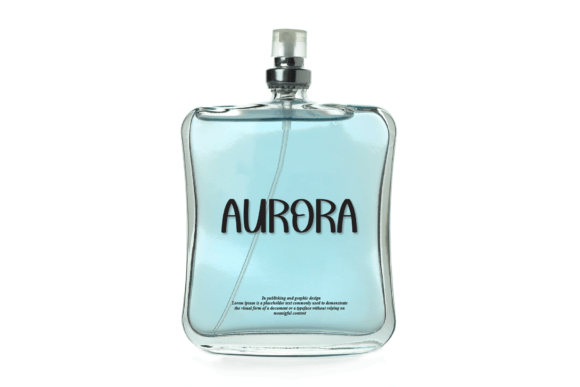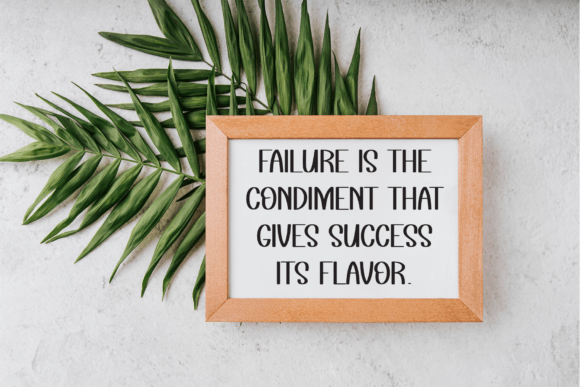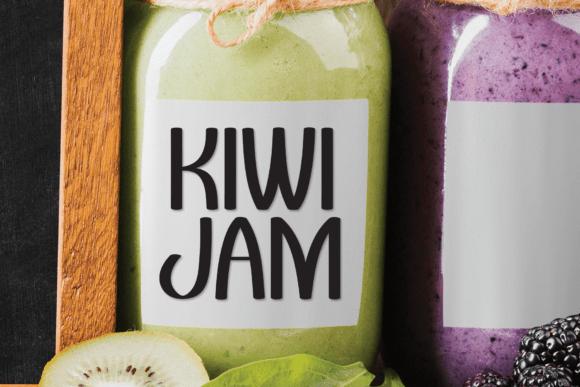
Introduction to Paper Note Font
Do you remember the thrill of holding a handwritten letter from a loved one, the texture of the paper, and the joy of reading those personal notes? That’s the magic we’ve tried to capture with our new Paper Note Font. This charming handwritten display font is designed to bring a touch of warmth and personality to your designs.
As designers, we’re always on the lookout for unique design resources that can elevate our creative projects. And that’s exactly what Paper Note Font offers – a high-quality, free download that’s perfect for crafting wedding invitations, cards, or any other design that requires a playful touch. With its transparent background, this font is incredibly versatile and can be used in a variety of settings, from digital to print.
Whether you’re a seasoned designer or just starting out, Paper Note Font is a valuable addition to your design toolkit. Its delightful vibe is sure to captivate your audience and leave a lasting impression.
Key Features of Paper Note Font
- High-quality, hand-drawn design ideal for creative projects
- Transparent background, allowing for easy layering and customization
- Includes a range of glyphs, including Latin and Cyrillic characters
- Perfect design resource for digital artists, graphic designers, and writers
Honest Review: Paper Note Font
As a designer, I’m always on the lookout for unique and high-quality design resources to elevate my creative projects. Recently, I stumbled upon the Paper Note Font, and I must say, it’s a hidden gem. ✨
The Paper Note Font offers a beautiful, hand-drawn aesthetic that’s perfect for adding a personal touch to your designs. It’s a free download, which is a major plus in my book. The font is also versatile, making it suitable for a wide range of design applications, from print to digital.
Some of the standout features of the Paper Note Font include:
- A transparent background that allows for seamless integration with other design elements.
- A wide range of weights and styles to suit your design needs.
- A high-quality, vector format that’s perfect for scaling and editing.
However, I did encounter a few limitations. ⚠️
- The font may not be suitable for large-scale text, as it can become difficult to read.
- The hand-drawn aesthetic may not be to everyone’s taste.
Overall, I’m impressed with the Paper Note Font, and I’d definitely recommend it as a design resource for any creative project. Its unique aesthetic and high-quality design make it a valuable addition to any designer’s toolkit.
To get the most out of Paper Note Font, use it for titles, headings, and quotes in your designs. You can also use it to create a cohesive look and feel across your brand’s visual identity. The Paper Note Font is perfect for creative projects, such as invitations, posters, and social media graphics.